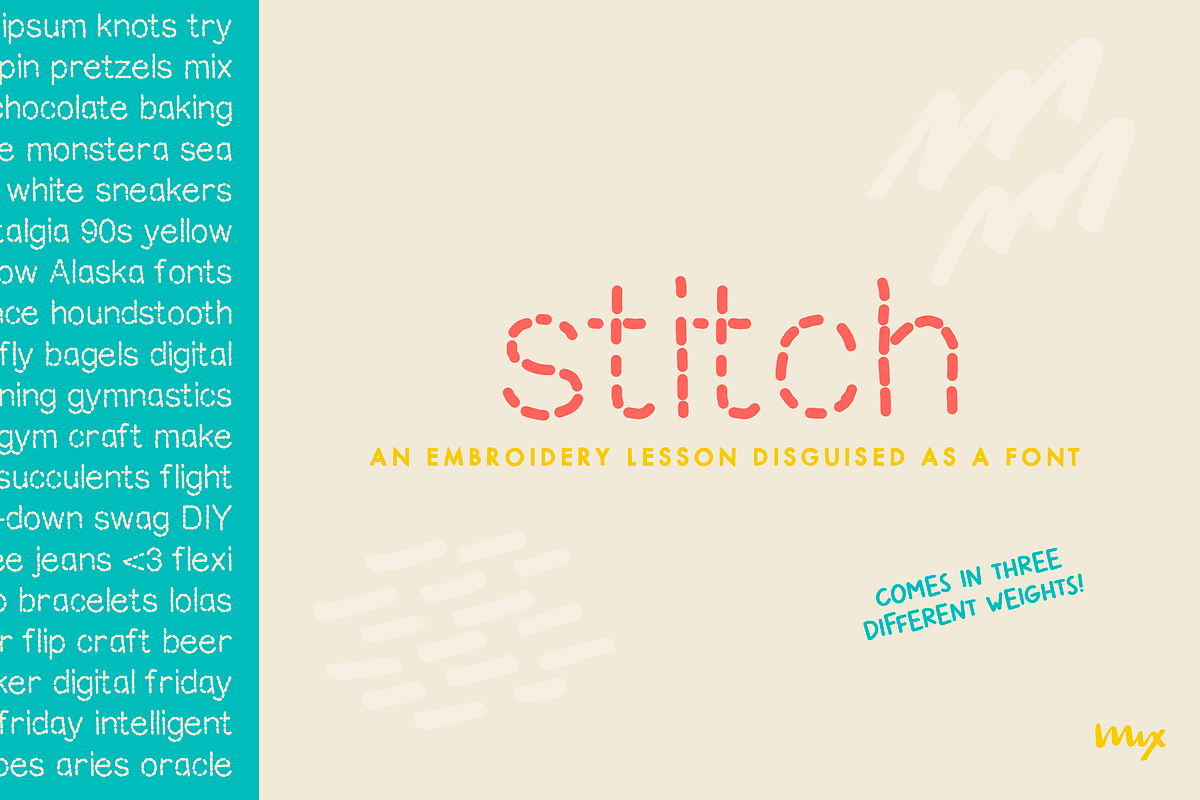
Stitch — An Embroidery Lesson Font Free Download
You must purchase this font for commercial use. However, you can download Stitch — An Embroidery Lesson Font Free Download for testing purposes. Stitch is a unique and charming font designed to replicate the look of hand-stitched embroidery. With its intricate, textured strokes, this font adds a handmade, artisanal feel to your designs. Perfect for crafting logos, signage, branding, and creative projects that require a personal, embroidered aesthetic, Stitch brings warmth and authenticity to your typography.
The font features soft, detailed strokes that evoke the look of fabric threads, making it ideal for projects that need a crafty, vintage, or handmade touch. Whether you're designing a boutique logo, a rustic wedding invitation, or a cozy brand identity, Stitch — An Embroidery Lesson Font will add character and uniqueness to your typography.